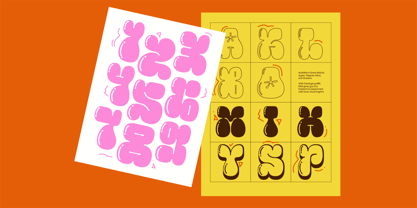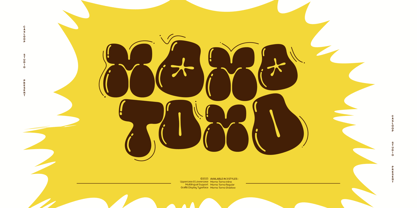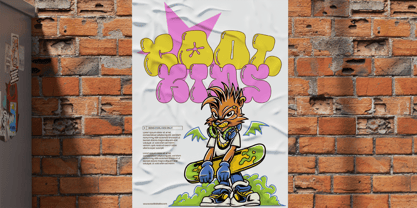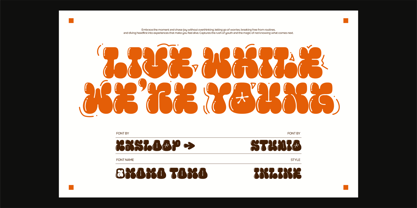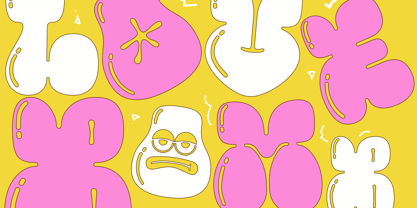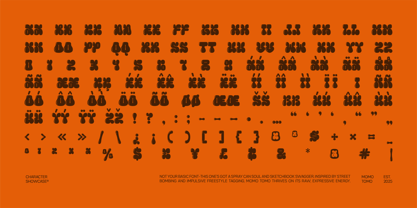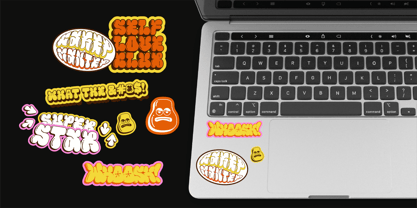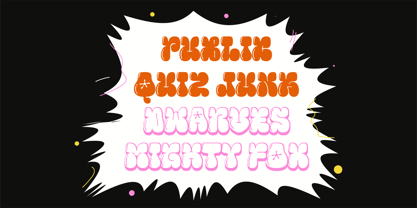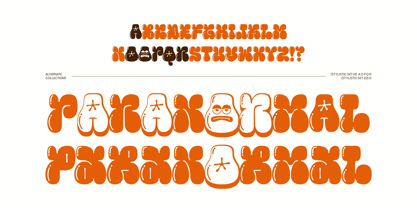
Momo Tomo
MOMO TOMO — Bubble Graffiti Font That Pops
Momo Tomo is a juicy graffiti display font full of bounce, chunky, funky, and full of visual attitude. Built with bubbly silhouettes and cartoon chaos, this typeface blends graffiti soul with comic book energy. From skate posters to sticker packs, Momo Tomo thrives in the loud, the wild, and the weird. Designed for Gen-Z culture and made for merch drops, it’s the perfect tool for rebellious branding, animated visuals, and street attitude statements. With three bold styles — Regular, Inline, and Shadow — and loads of personality-packed alternates, Momo Tomo gives you room to explore visual rhythm and quirky letter combos. Whether you’re designing for a skate brand, zine cover, or animated TikTok reel, this font brings the juice.
What’s Inside:
3 expressive styles: Momo Tomo Regular, Inline, and Shadow
Uppercase & Lowercase + stylistic alternates (SS01, SS02)
Multilingual support – perfect for global slang & sticker slogans
Designed for: logo, poster, motion graphics, website headers, zines, Gen-Z content
From street corners to digital canvases, Momo Tomo is your go-to bubble font for bold, expressive visuals with attitude, bounce, and rebellious charm.